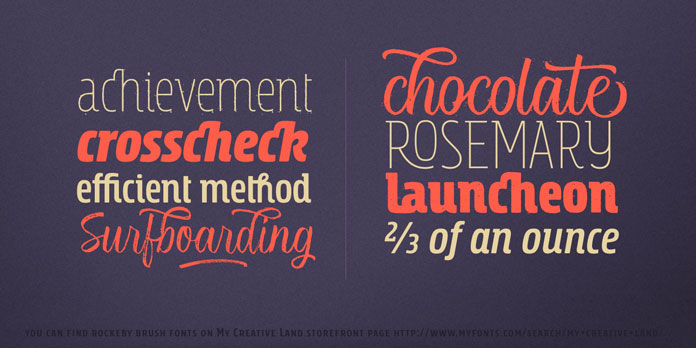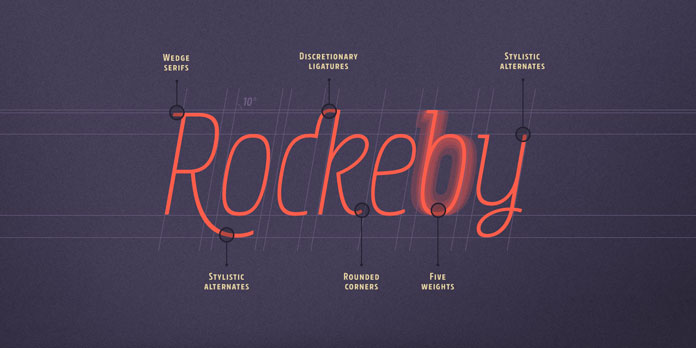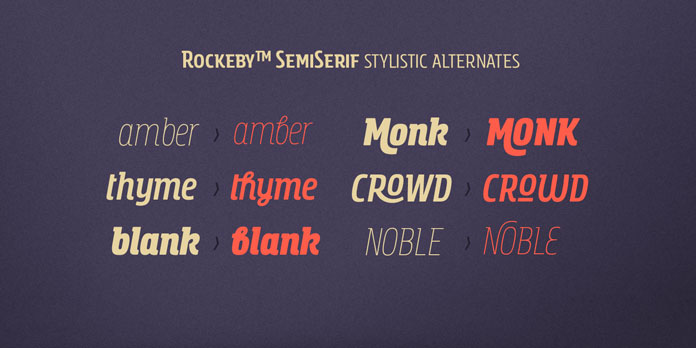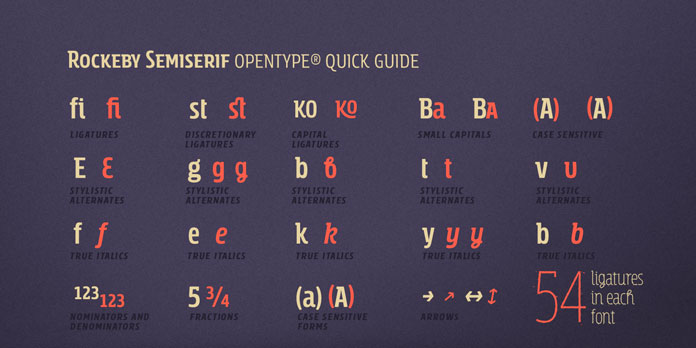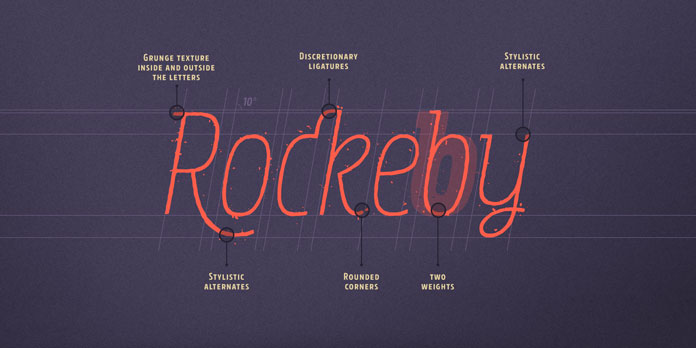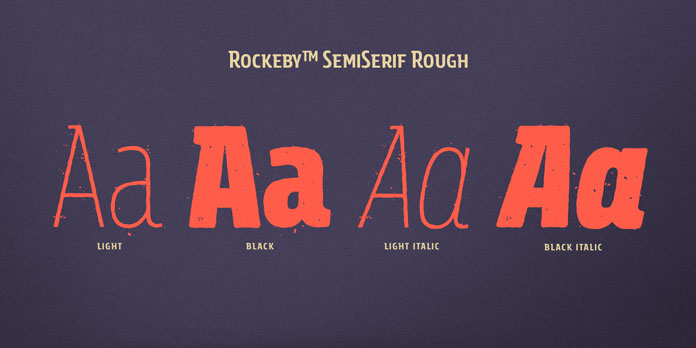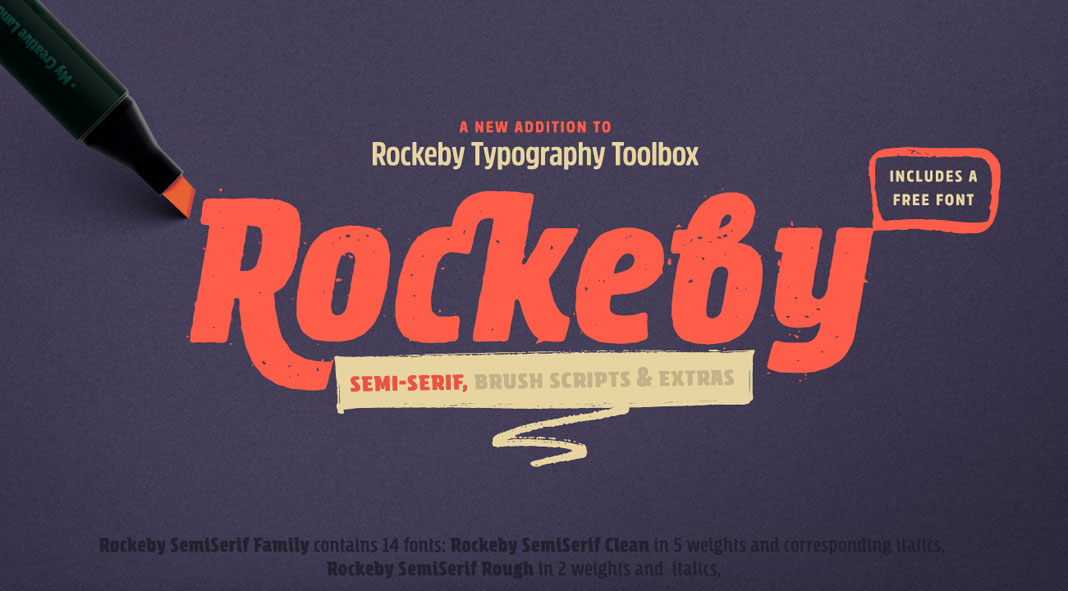
Rockeby Semi-Serif, a diverse brush script font family with lots of extras.
Type foundry My Creative Land has recently published a new member of their popular Rockeby Typography Toolbox collection. The Rockeby Semi-Serif font family consists of 14 fonts in various styles and weights. It’s a great choice for various design projects including branding, websites, brochures, greeting cards, and much more. It also includes a nice textured version called Rockeby SemiSerif Rough. The grunge style has been applied to the letters and all surrounding areas. The family is also equipped with lots of OpenType features such as discretionary ligatures and stylistic alternates. Just have a look at the images below to get some further information.